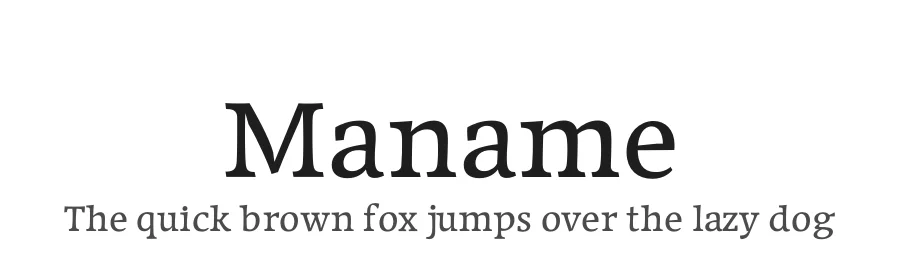
About Sextan Font
Sextan serif is a typeface family with 10 styles designed for editorial, corporate, advertising or web use. The excellent readability allows the use in long texts, the coherence of forms make these fonts have a great personality.
The fonts have an extra set of lower case letters accessible through the Discretional Ligatures. Also support for Open Type Functions such as Old Style Number, Superiors, Inferiors, Dynamic Fractions, etc. Includes the Bitcoin symbol: b #
| Designer | Fernando Haro |
Sextan Font is a versatile serif font that works for both headings and body text. Pair it with a contrasting sans-serif or slab serif font to add visual interest and a clear distinction between titles and body copy.
Sextan Font
by deFharo